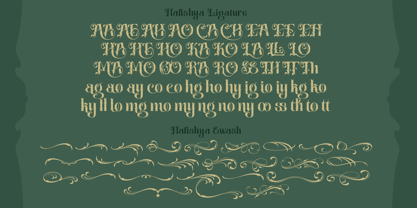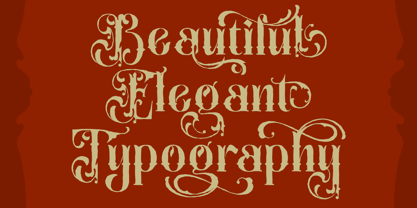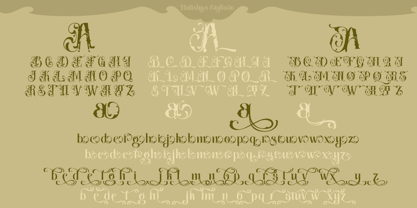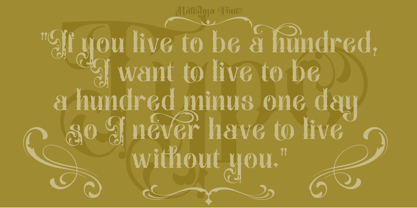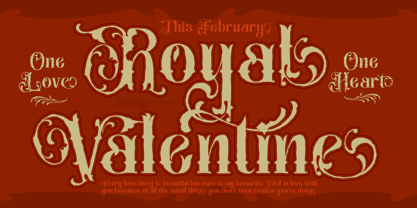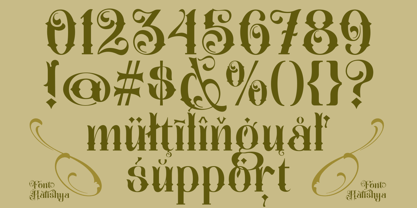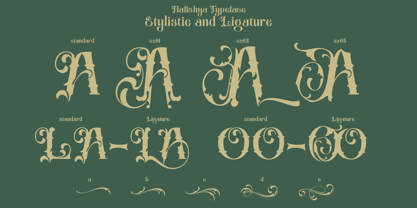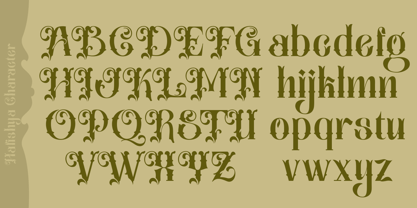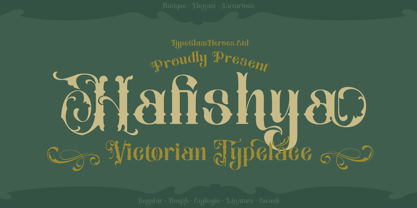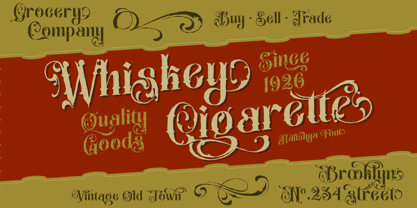
Hafishya
by TypeClassHeroes
The Hafishya Font Family was designed by Suandana ipandemade and published by TypeClassHeroes. Hafishya contains 2 styles and family package options. More about this family
Introducing Hafishya, a classic Victorian font that exudes elegance and beauty through its bold yet soft letter details. Available in both regular and rough versions, along with ornamental swashes, it conveys a timeless sense of luxury and professionalism. With its classy character and harmonious visual balance, this font is ideal for branding applications that seek to emphasize an exclusive, trustworthy, and authoritative image. Perfect for upscale branding, packaging designs, Hafishya enhances any project with its distinctive style and refined aesthetic.
Designers: Suandana ipandemade
Foundry: TypeClassHeroes